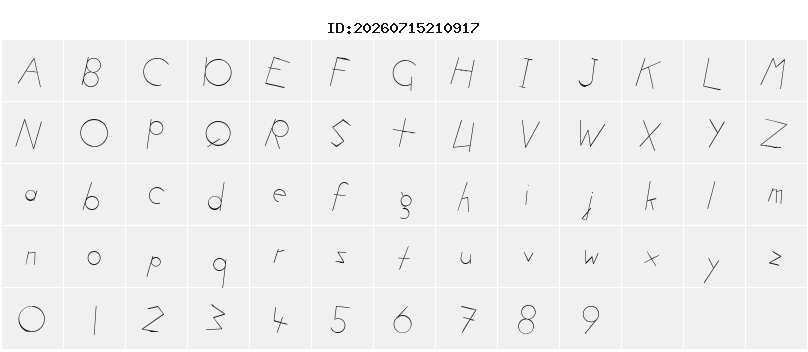
• Font Name: Atomic Pasta
About Atomic Pasta.ttf
Atomic Pasta.ttf is a modern, elegant sans-serif font designed for ultimate readability and visual harmony. Perfect for branding, headlines, web design, and print materials.